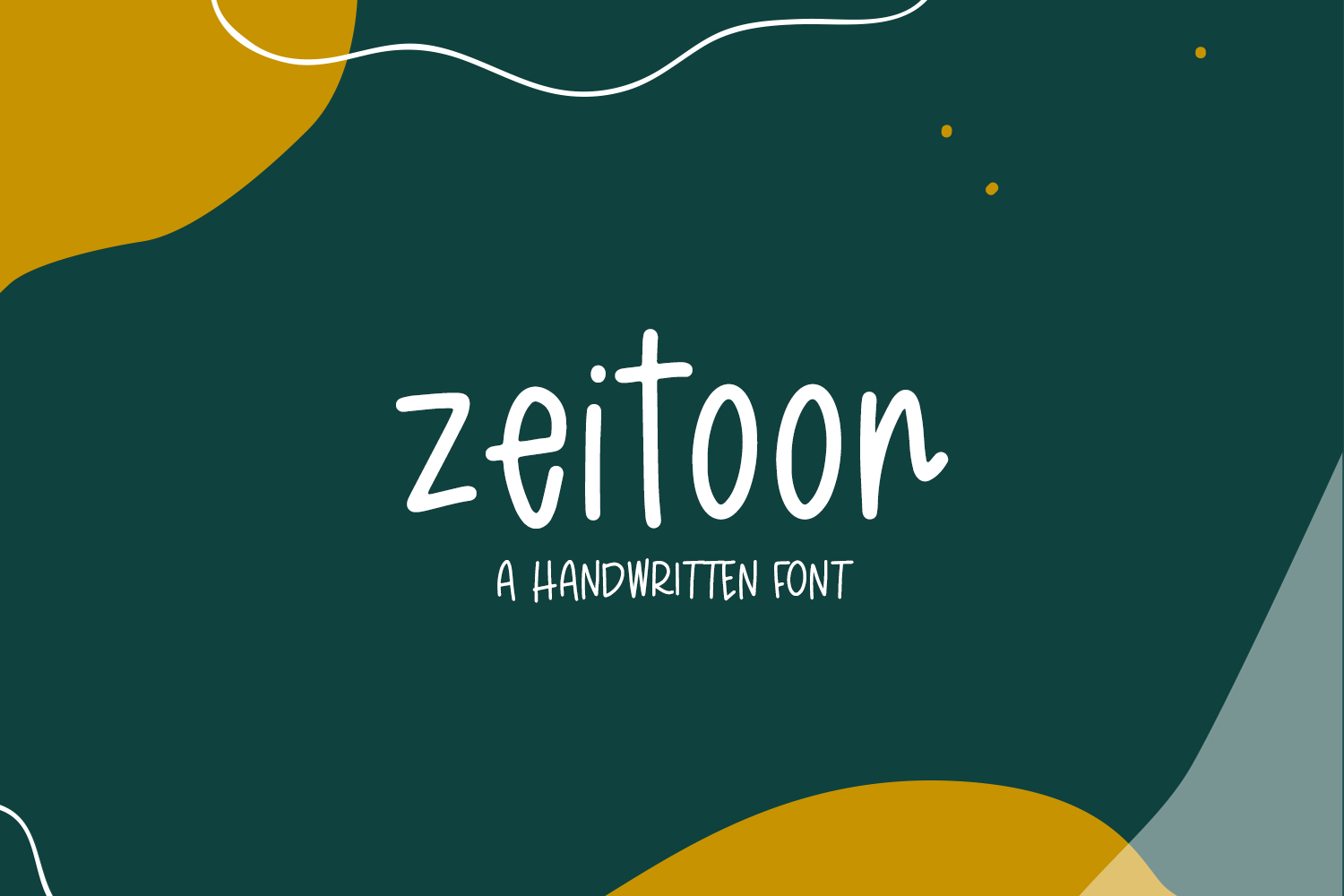
Meet Zeitoon Sans, a happy handlettered font. Zeitoon is playful, and features a smooth edge making it a great candidate for crafting & vinyl cutting projects!
Zeitoon Sans is best for:
- crafting & vinyl cutting projects on your Cricut or Silhouette machine
- classrooms & teachers, with a childlike handwritten touch
- header elements that need a fun look & feel